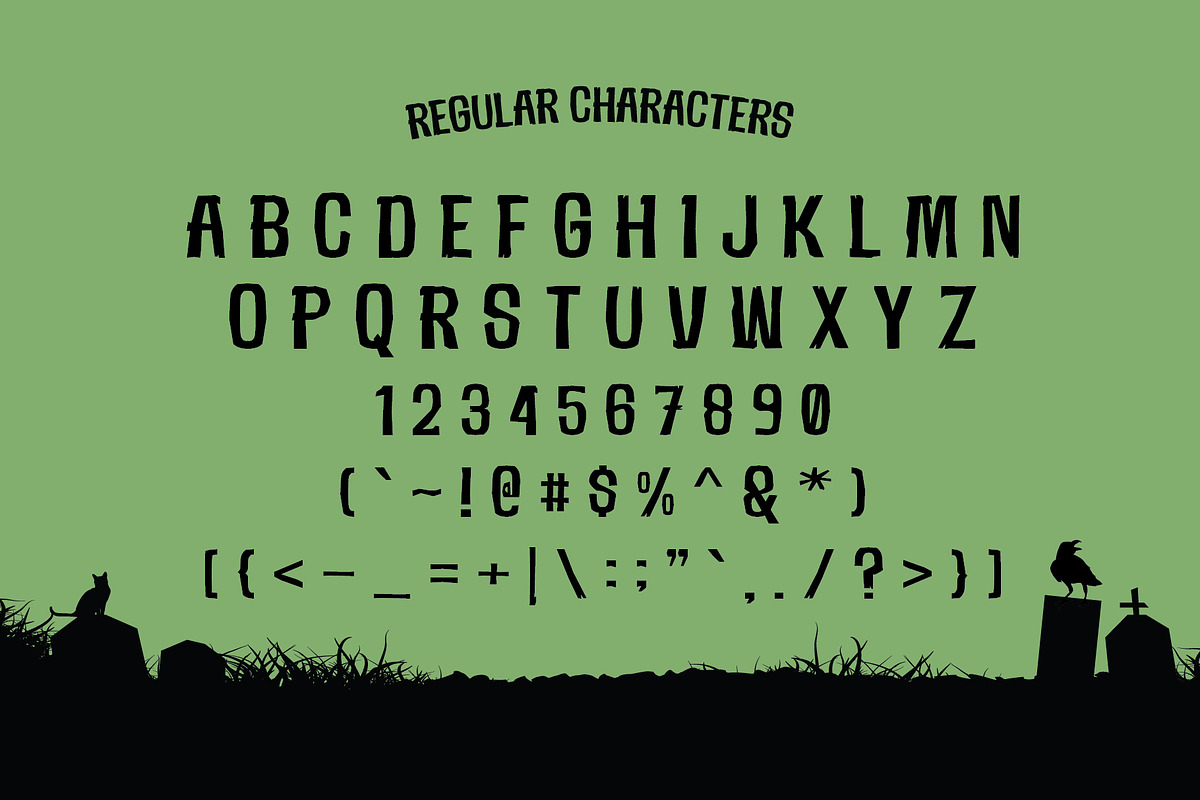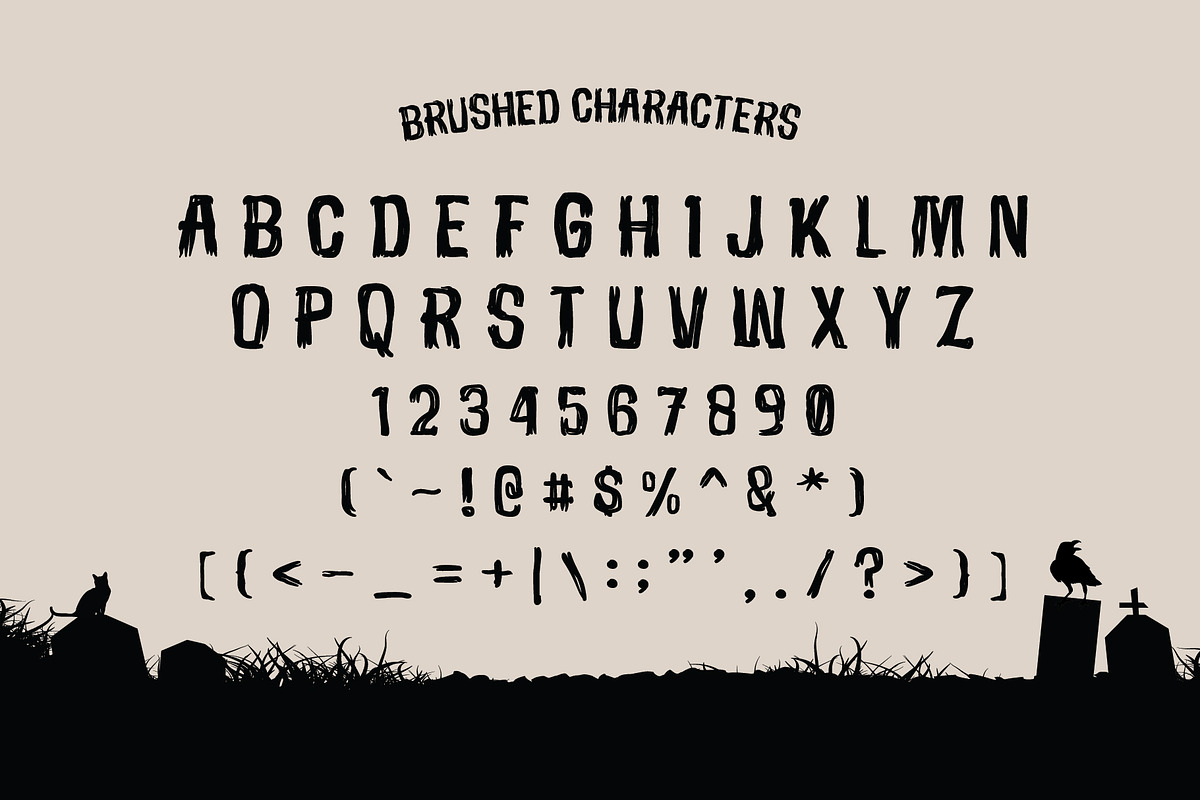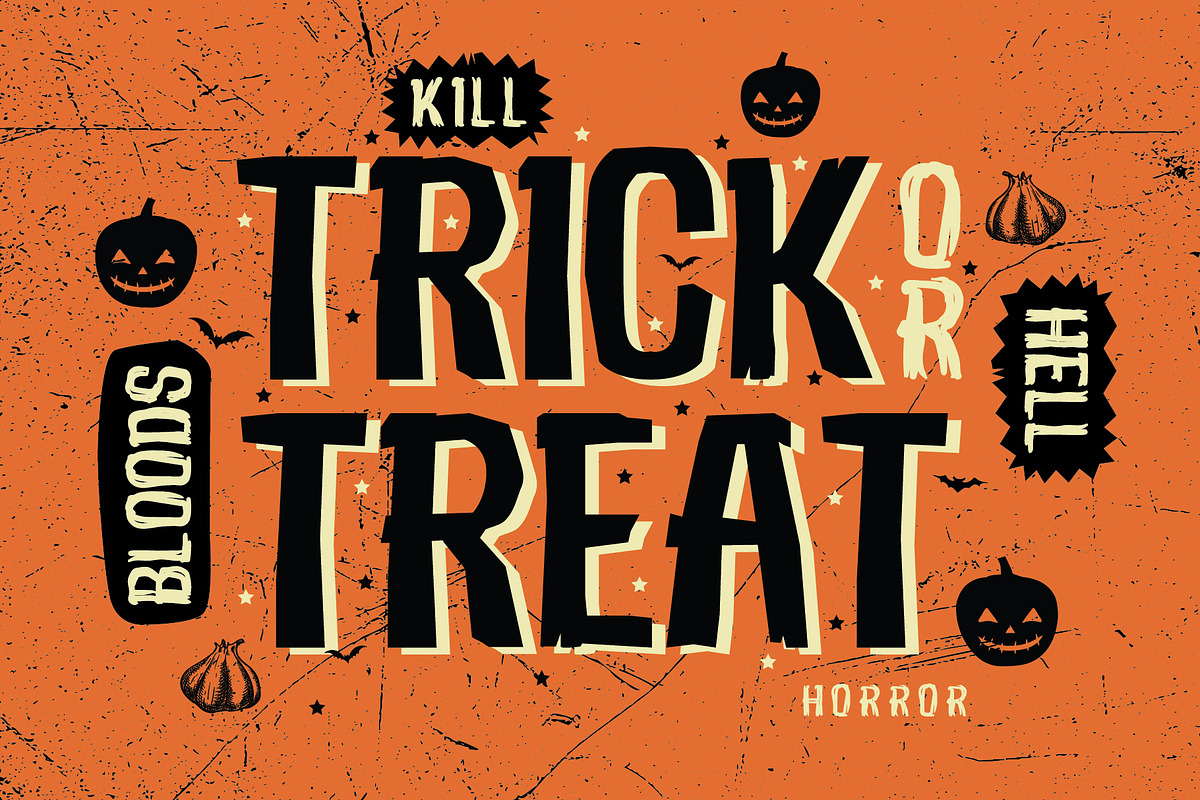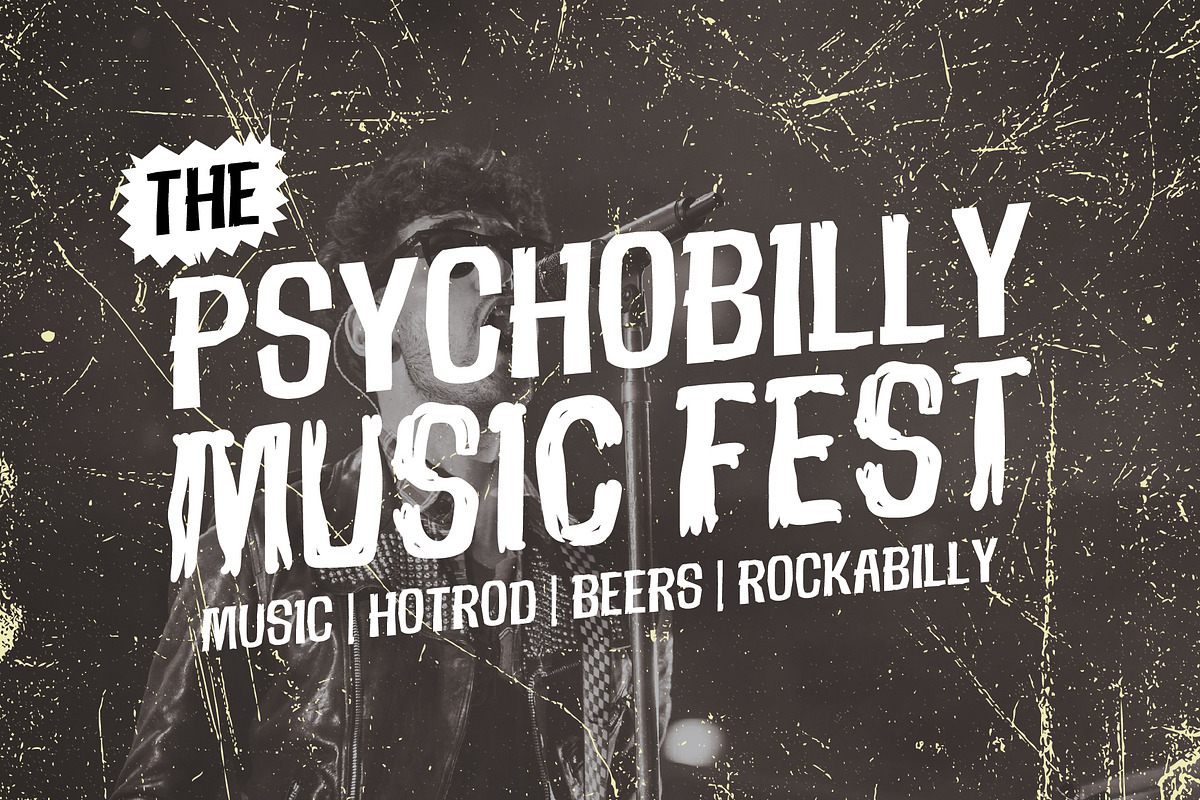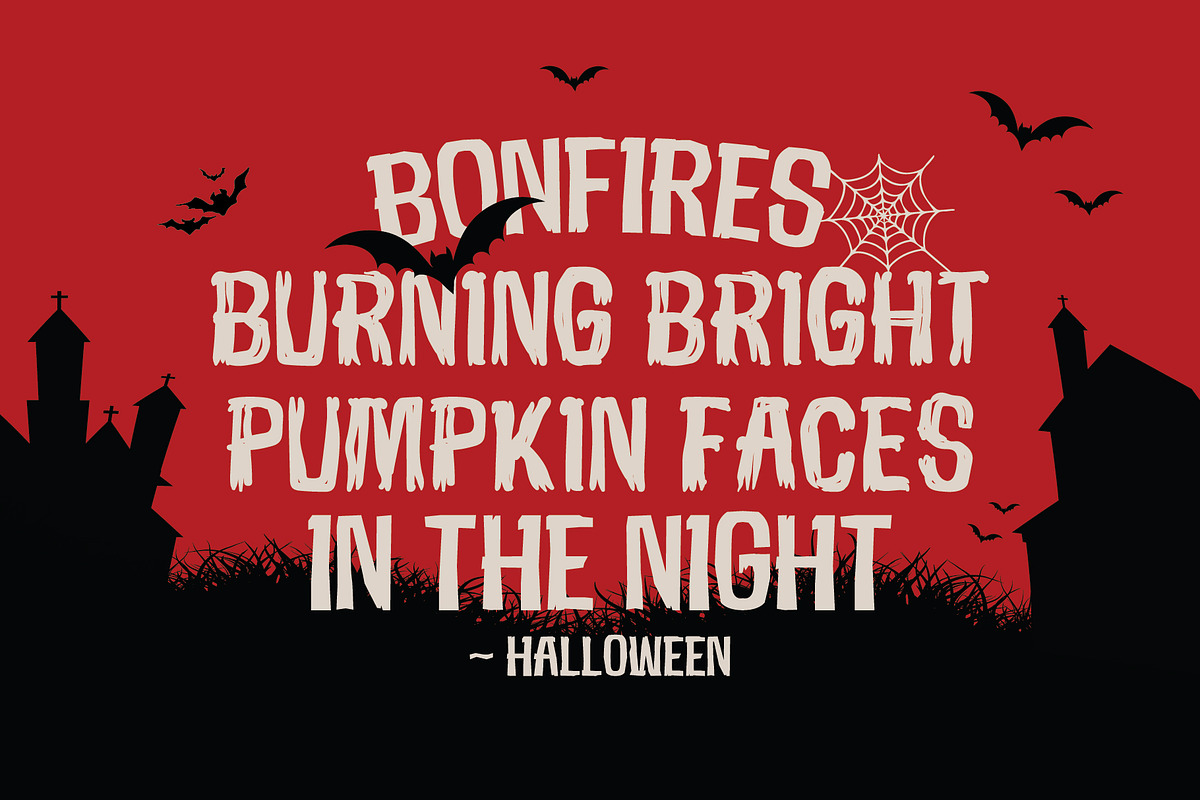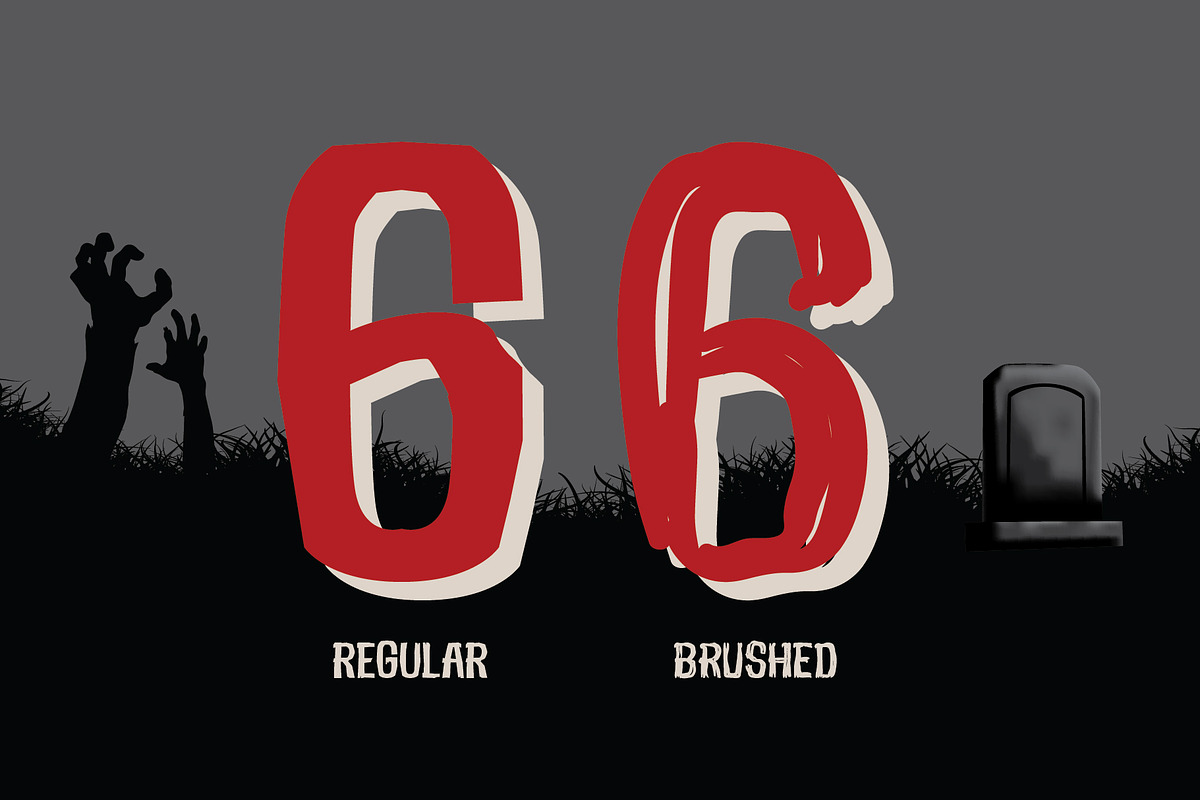
JARIAN ; Halloween Typeface
Introducing "Jarian" halloween typeface. Inspired from vintage halloween comic (cartoon). You can use this halloween typeface for halloween event promotion like flyer, poster and social media content, You also can use for comic title or header type, quote, movie title or credits, apparel design, etc.
- Jarian Regular
- Jarian Brush Regular